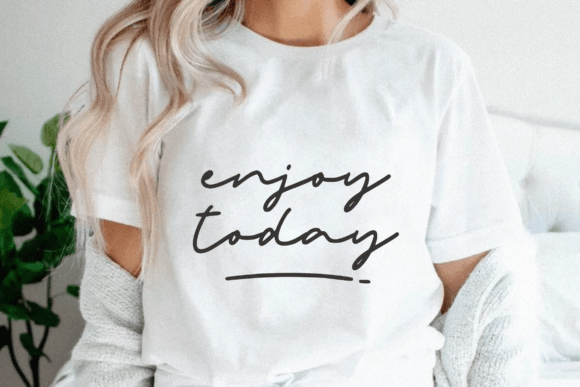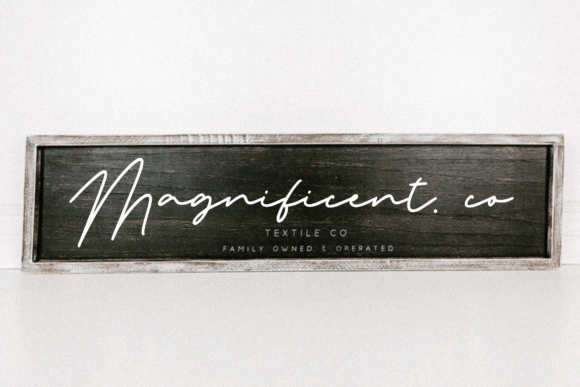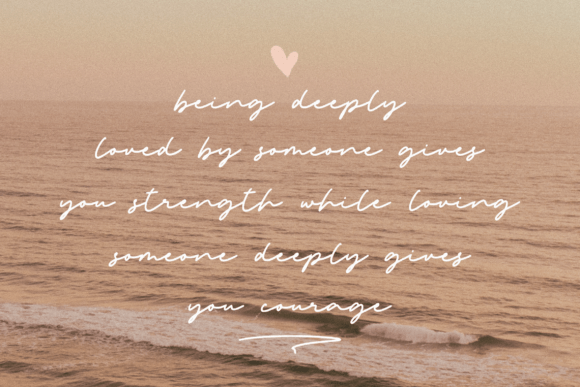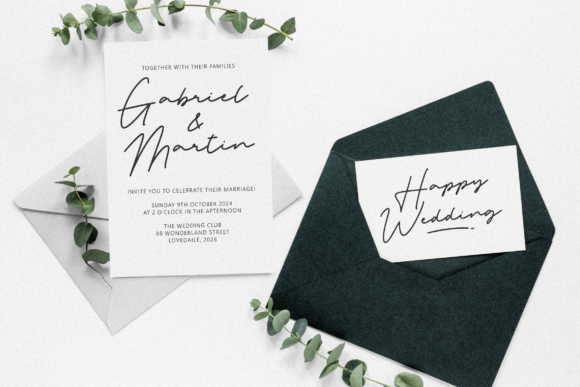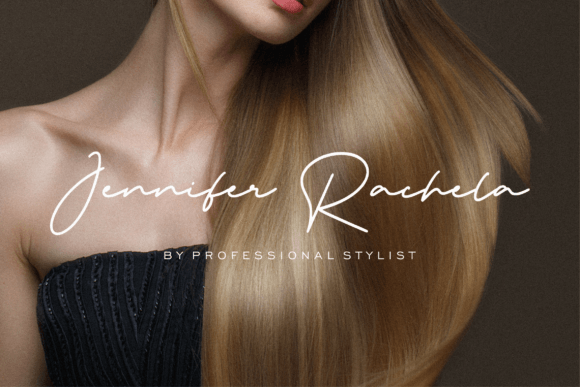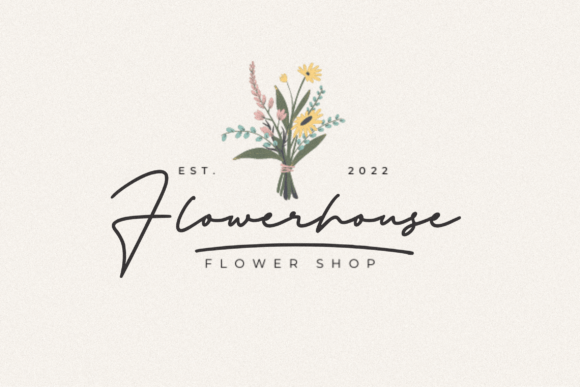
Introducing Handgoals Font: The Ultimate Signature Handwritten Font for Designers and Crafters
Are you tired of using the same old fonts for your design projects? Do you want to add a personal touch to your branding, packaging, or social media graphics? Look no further than Handgoals Font, a beautiful signature handwritten font that’s perfect for making a statement. In this article, we’ll dive into the world of Handgoals Font and explore its features, benefits, and uses.
What is Handgoals Font?
Handgoals Font is a carefully crafted signature handwritten font that’s designed to add a touch of elegance and sophistication to your design projects. With its flowing lines, beautiful curves, and intricate details, this font is perfect for creating stunning visuals that capture the attention of your audience.
Features of Handgoals Font
So, what makes Handgoals Font so special? Here are some of its key features:
- Handwritten style: Handgoals Font is a true handwritten font, created with love and care to mimic the imperfections and uniqueness of human handwriting.
- Signature style: This font has a distinctive signature style that’s perfect for creating personalized and memorable designs.
- High-quality design: Handgoals Font is designed with precision and attention to detail, ensuring that it looks great in any context.
- Versatile: This font is suitable for a wide range of design projects, from product packaging and branding to magazines, social media, and weddings.
Benefits of Using Handgoals Font
So, why should you choose Handgoals Font for your design projects? Here are some benefits of using this amazing font:
- Adds a personal touch: Handgoals Font adds a personal touch to your designs, making them more relatable and engaging.
- Creates a lasting impression: The unique and elegant style of Handgoals Font creates a lasting impression on your audience, making your designs more memorable.
- Perfect for branding: This font is perfect for creating a consistent brand identity, adding a touch of sophistication and elegance to your branding materials.
Uses of Handgoals Font
So, what can you use Handgoals Font for? The possibilities are endless! Here are some ideas to get you started:
- Product packaging: Use Handgoals Font to create stunning product packaging that stands out on store shelves.
- Branding projects: Add a touch of elegance to your branding materials, including business cards, letterheads, and brochures.
- Magazines and blogs: Use Handgoals Font to create eye-catching headlines and titles for your magazine or blog.
- Social media graphics: Add a personal touch to your social media graphics, including Facebook posts, Instagram stories, and Twitter headers.
- Weddings and events: Use Handgoals Font to create beautiful wedding invitations, programs, and other event materials.
In conclusion, Handgoals Font is a beautiful signature handwritten font that’s perfect for designers and crafters looking to add a personal touch to their design projects. With its elegant style, versatility, and ease of use, this font is sure to become a favorite in your design arsenal. So why wait? Try Handgoals Font today and take your designs to the next level!
Whether you’re a professional designer or a crafter, Handgoals Font is the perfect choice for anyone looking to create stunning visuals that capture the attention of their audience. So go ahead, get creative, and make your designs stand out with Handgoals Font!